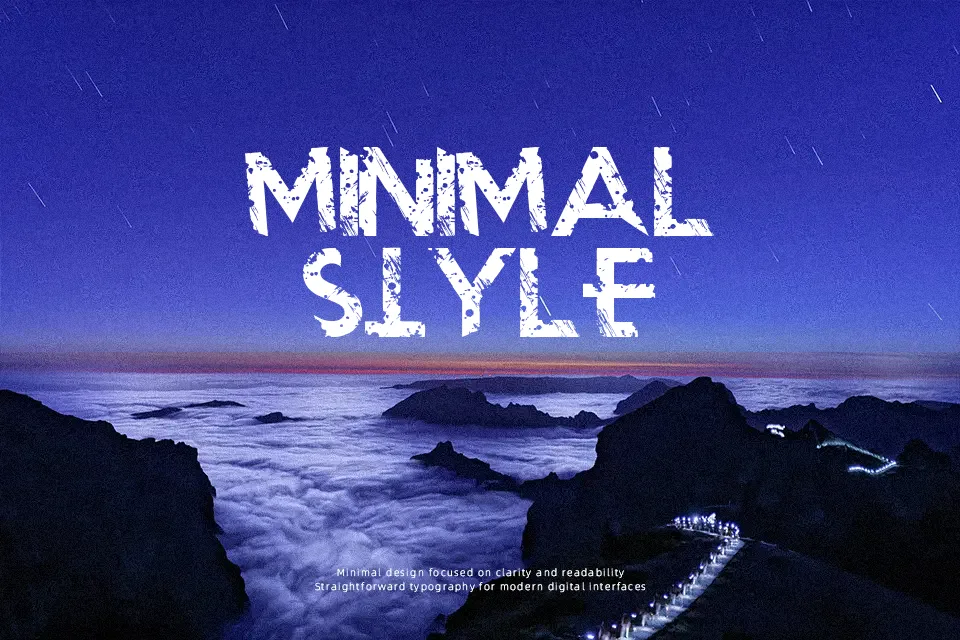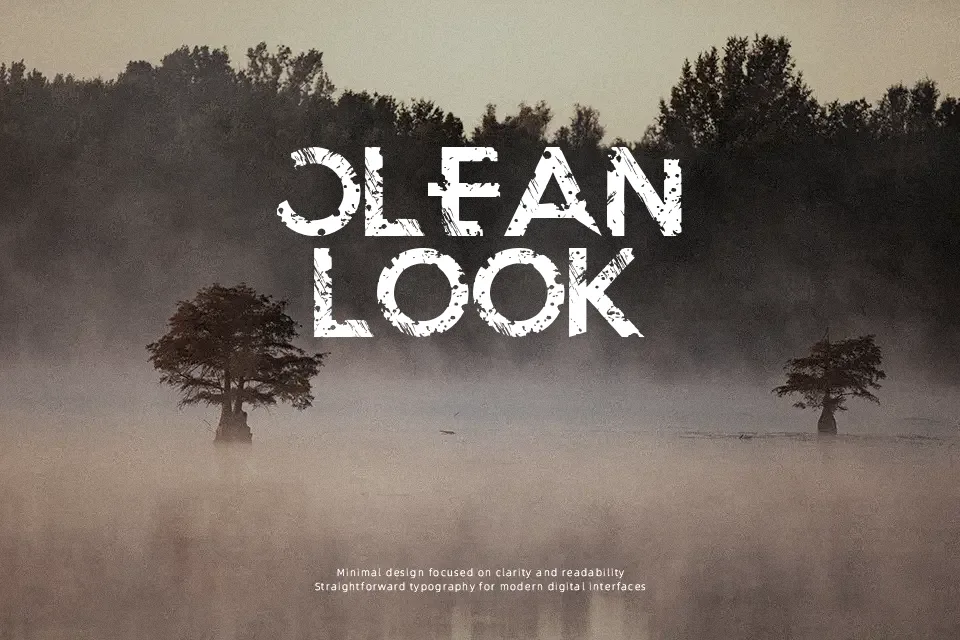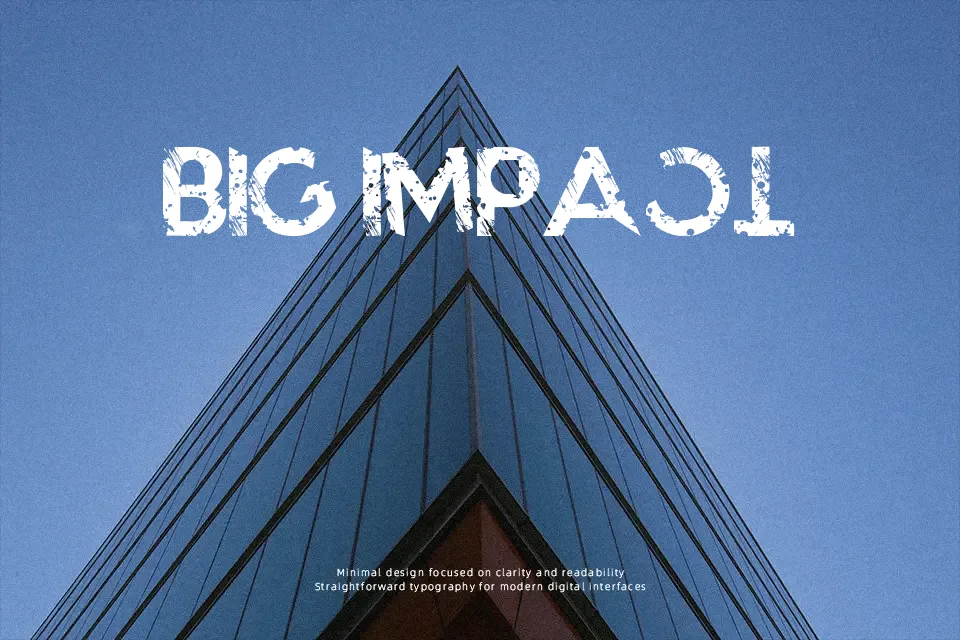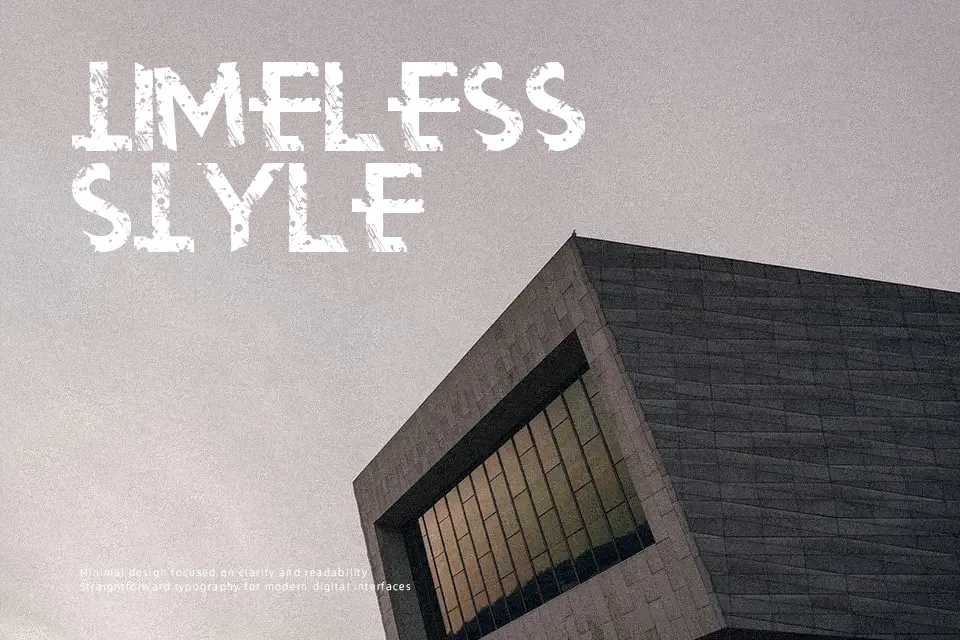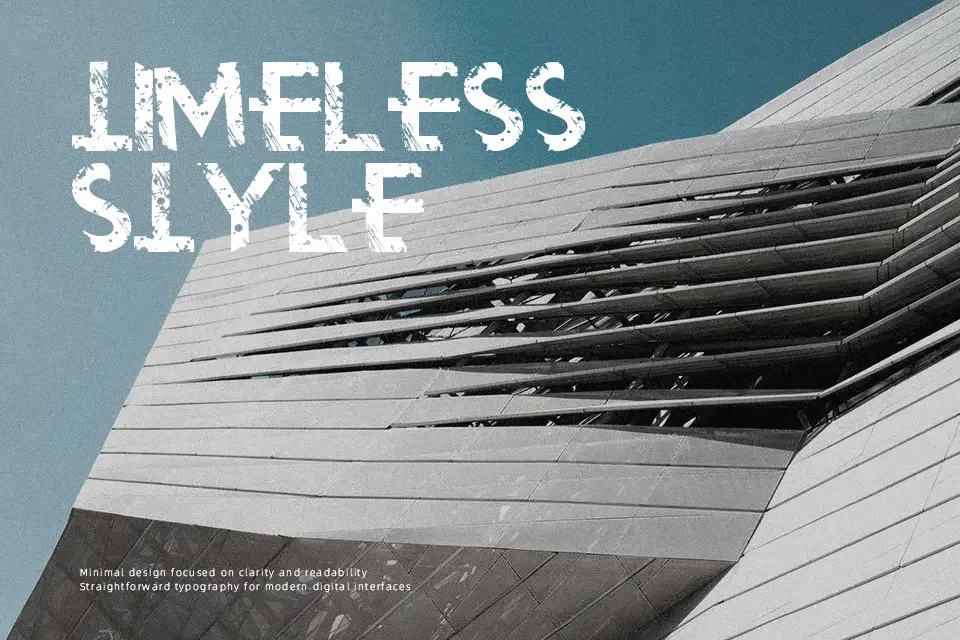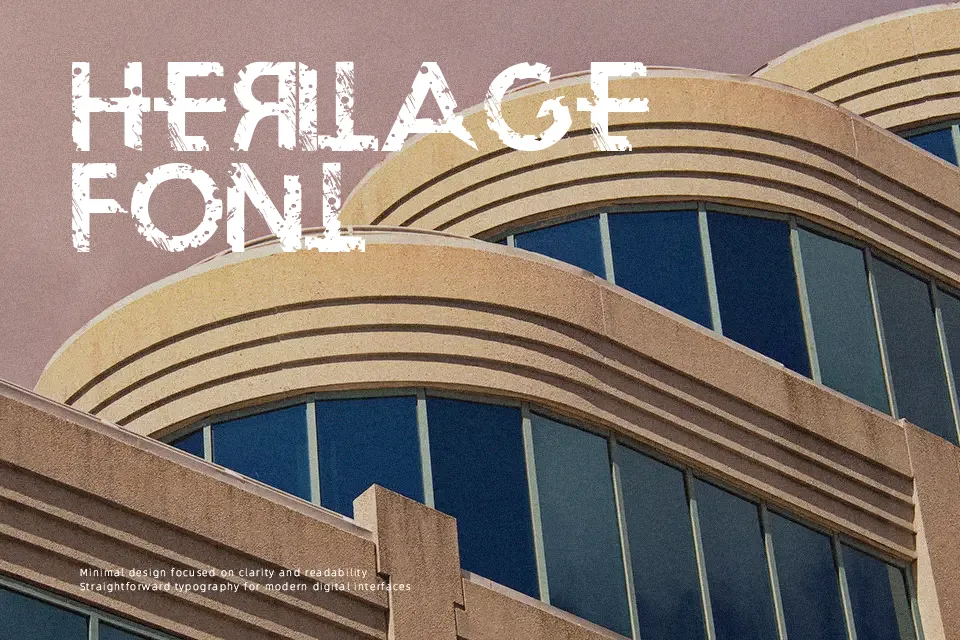
Blackout Morning Font
Blackout Morning delivers an intense visual impact with its heavily eroded stroke structure and chaotic baseline. This display typeface mimics weathered paint or degraded stamped ink, establishing a raw, rebellious grunge aesthetic. Its characters remain chunky yet heavily textured, introducing an aggressive, unapologetic tone to the canvas.
This distressed font excels in large-scale applications like underground music merchandise, dramatic film titles, and gritty streetwear graphics where a dark energy is needed. Conversely, because of the heavily fragmented letterforms, it struggles with legibility at smaller scales. Designers should avoid applying it to extended body text, interface elements, or formal corporate branding that demands clean, crisp readability.
– Gritty streetwear apparel graphics
– Underground music album covers
– Dramatic horror movie titles
– High-impact rebellious event posters
– Extended paragraphs or small body text
– Clean corporate brand identities
– Digital user interface components
Perfect for film, gaming, and headline, with a bold and decorative style.